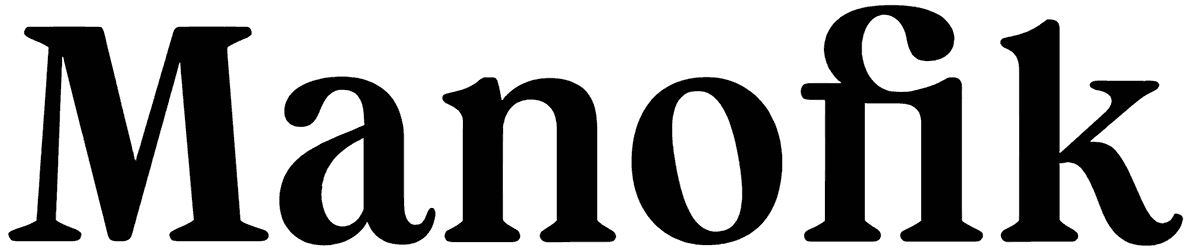
Manofik Font
Where could a font with formality and dependability, conveying an ecstatic and captivating mood, be brilliant? Yes, you guessed it: magazines, fashions, and wedding designs are all tempting ways to get attention.
The Manofik, a serif font that comes in four different styles and does not support numbers, is intended to help you improve your design skills. Check out our ever-expanding catalog to get first dibs on all the free resources you could desire!